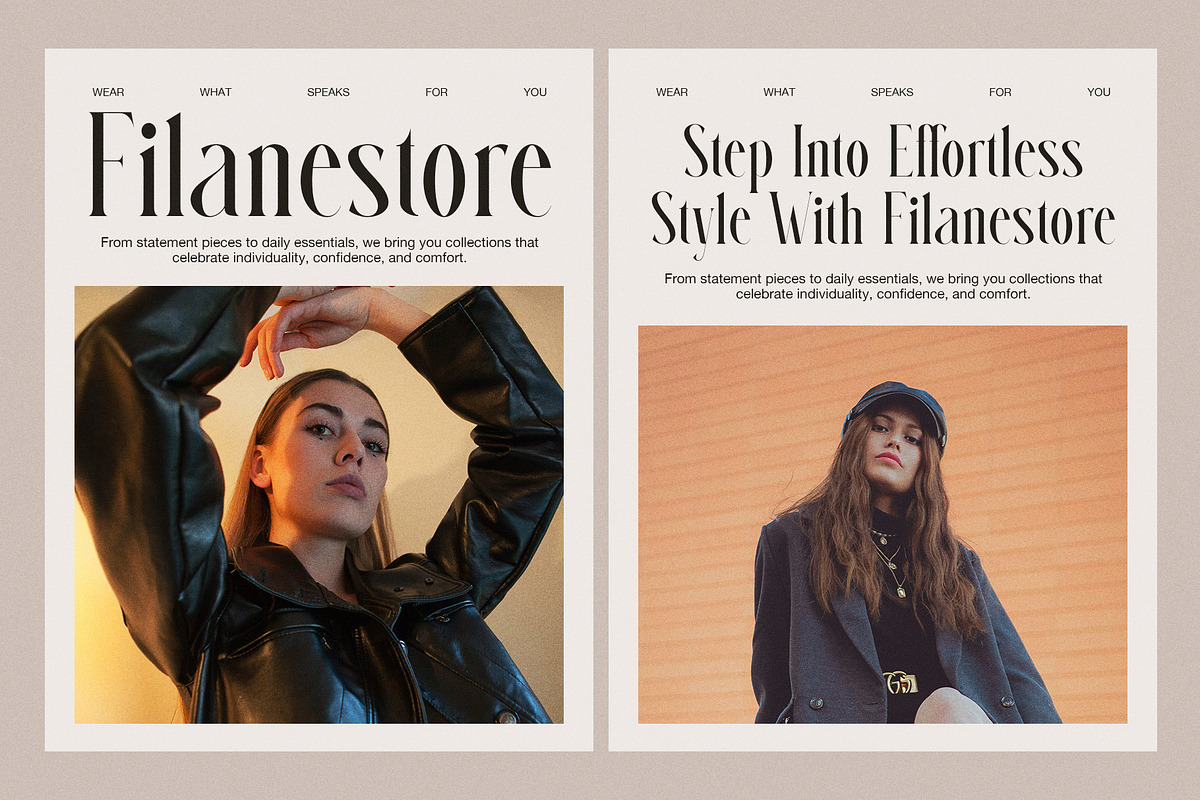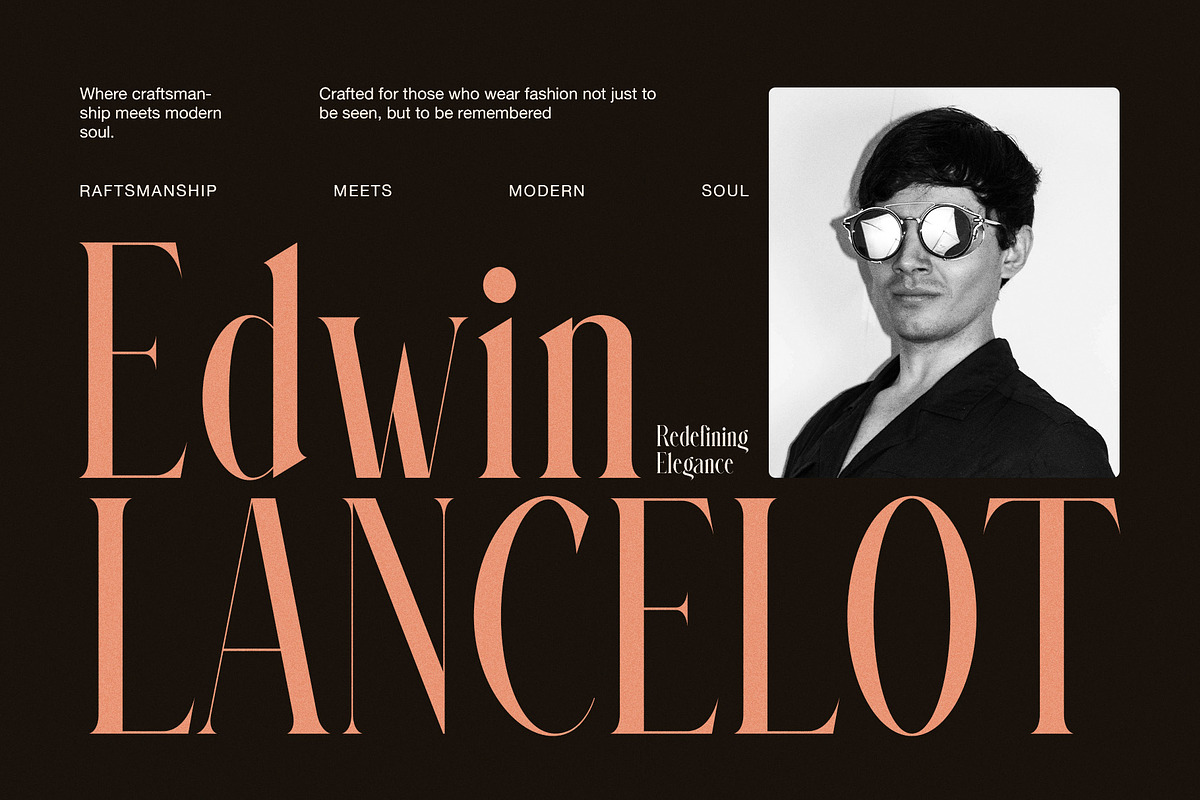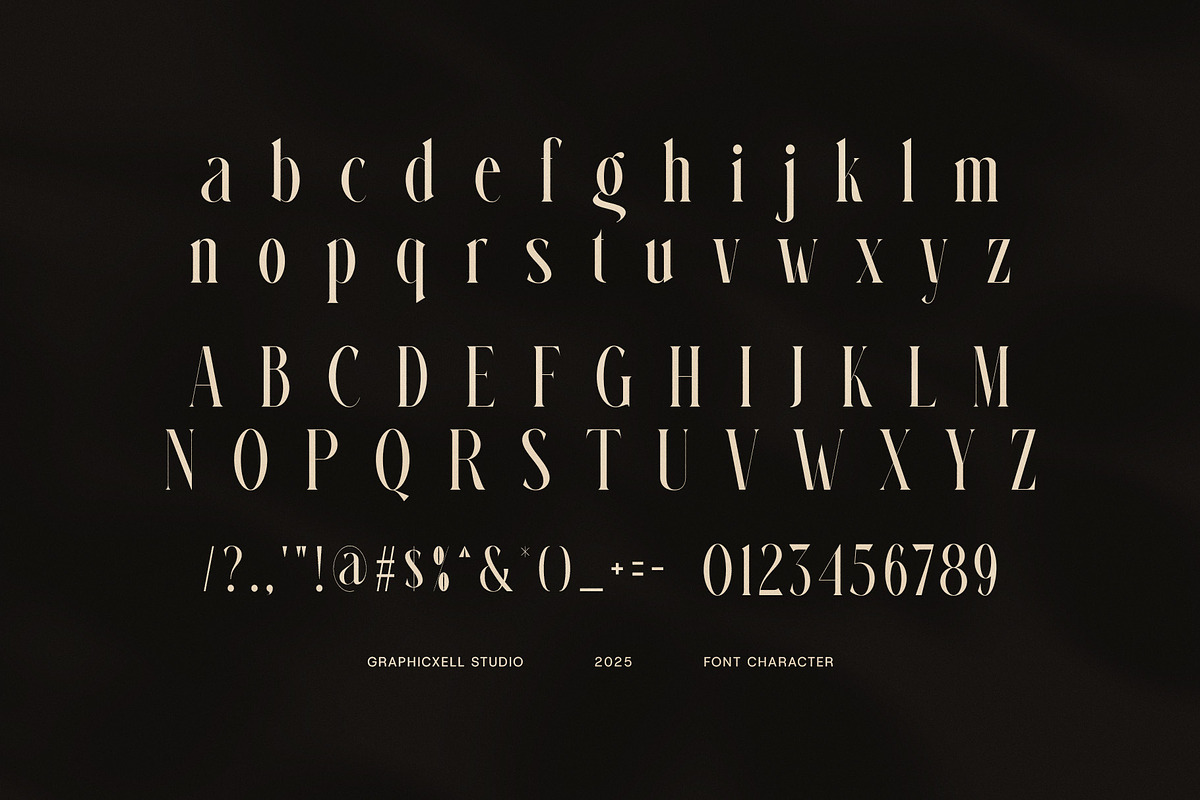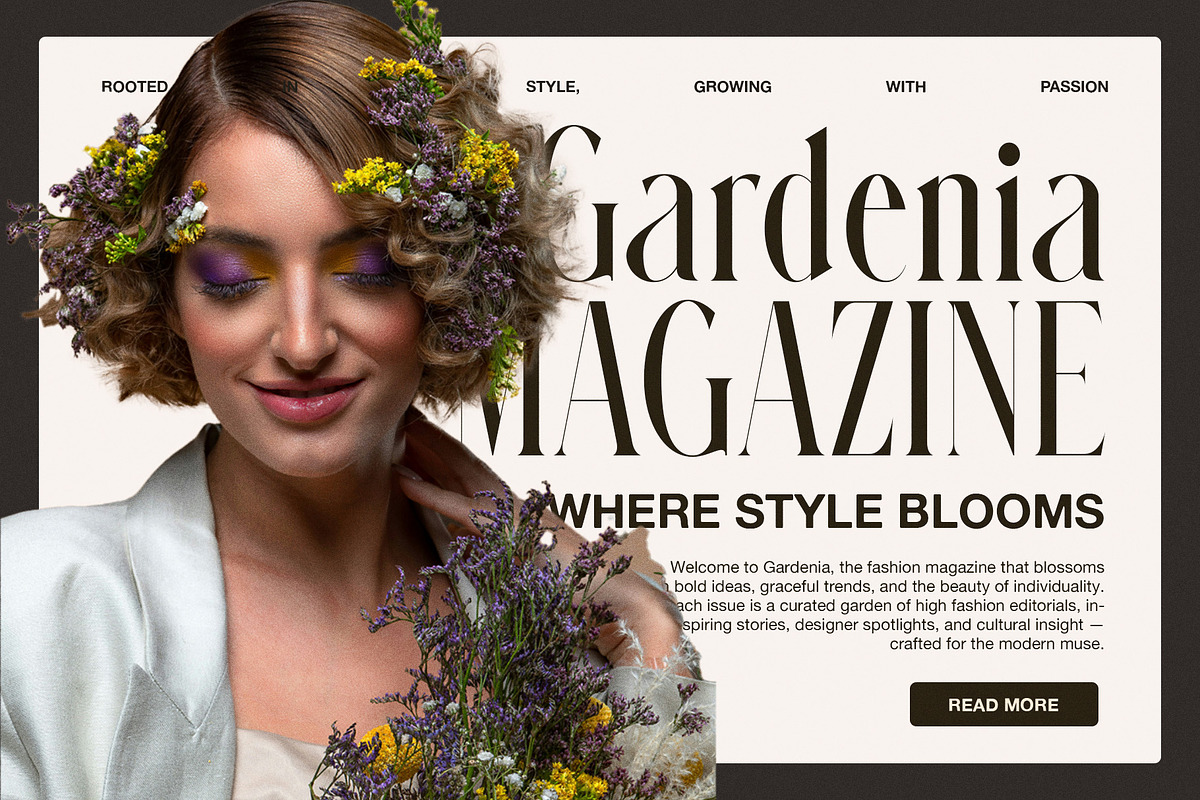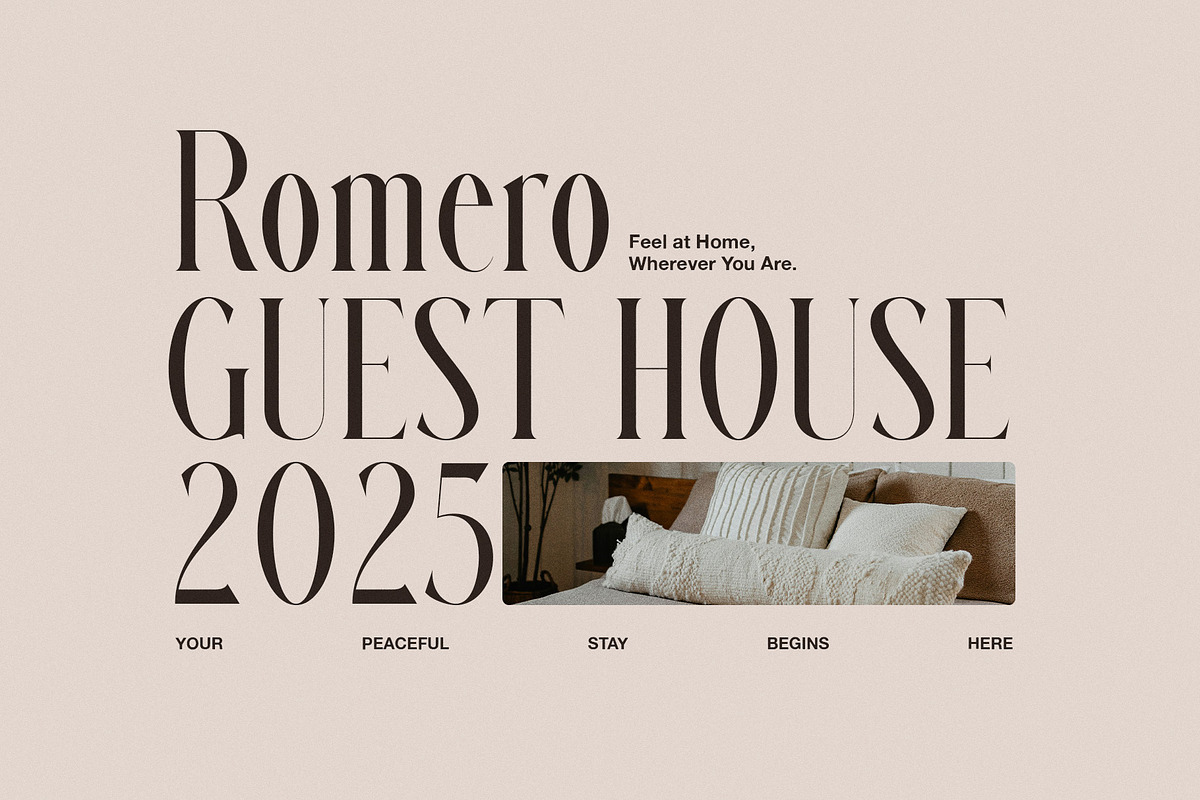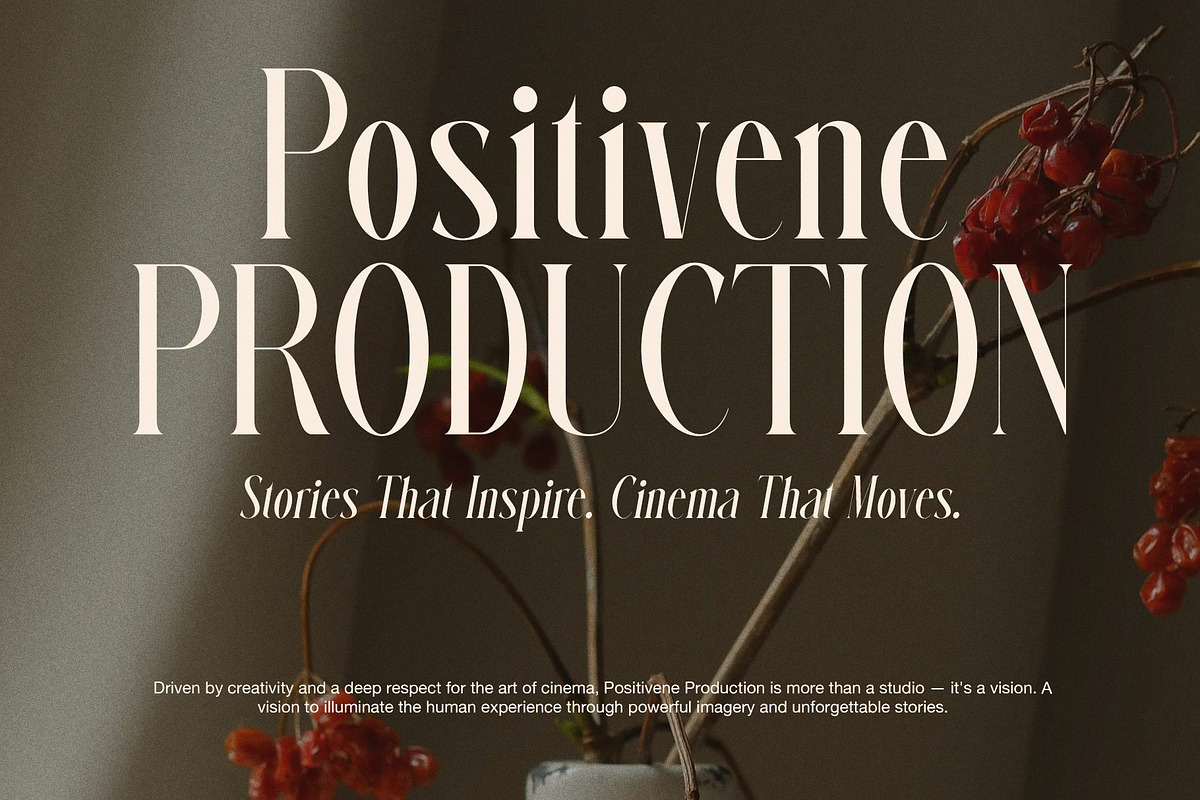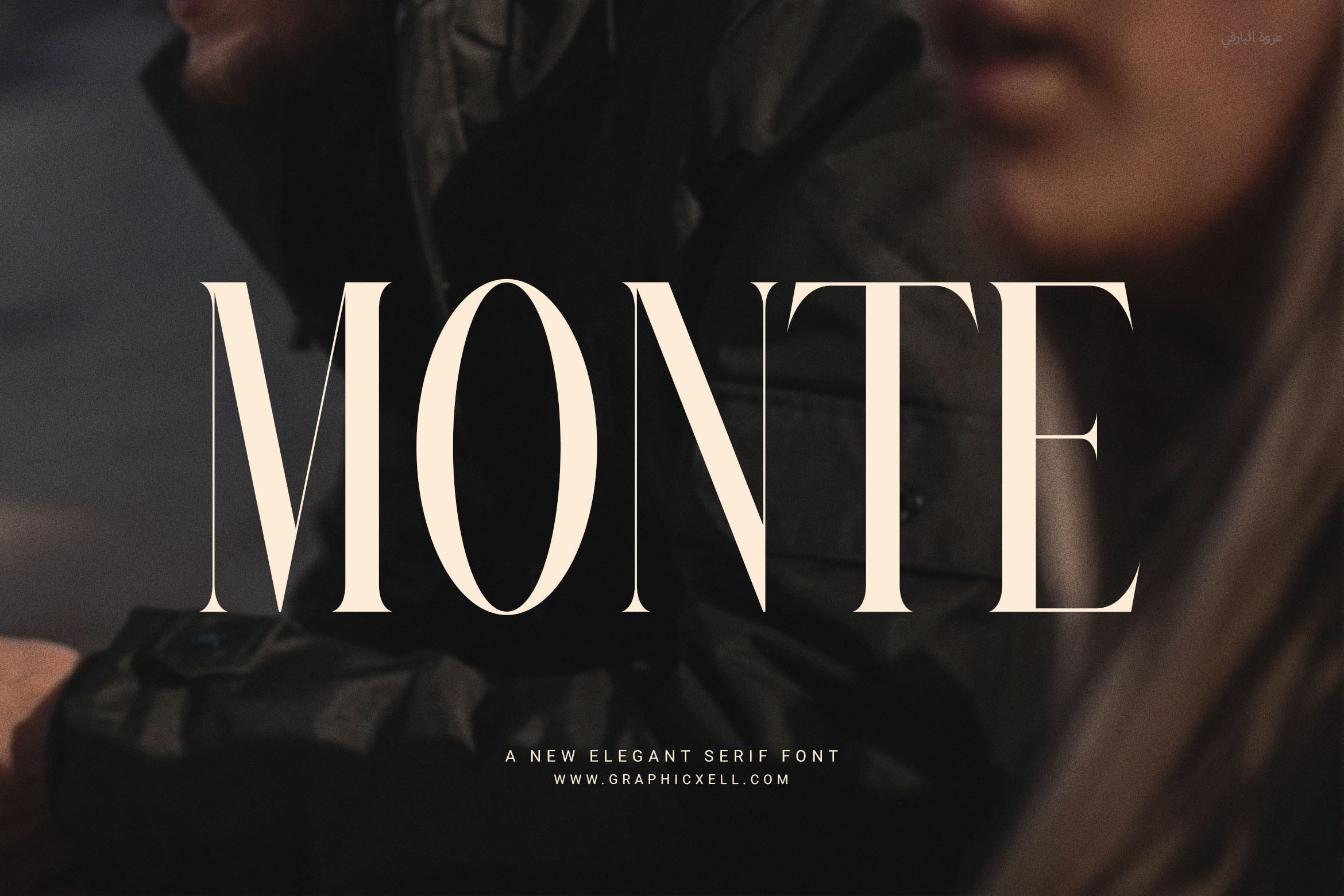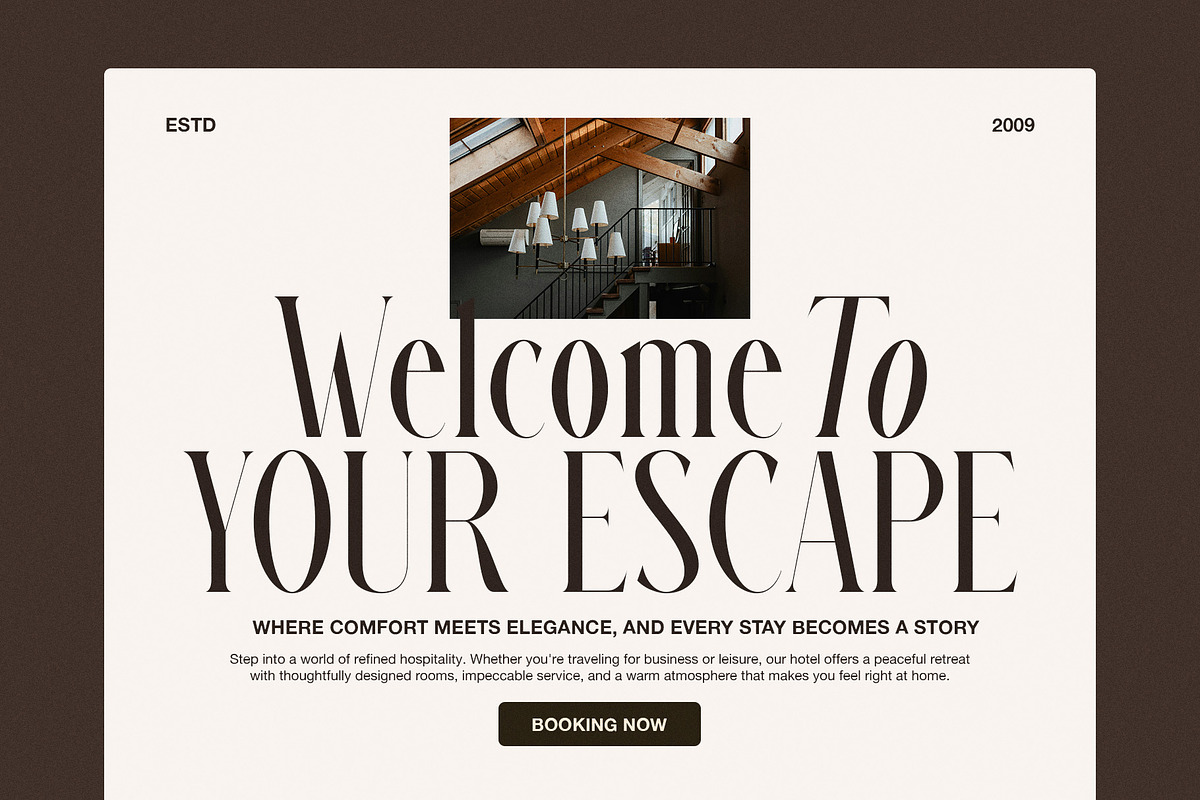
Monte Elegant Serif Font
✨ Monte Elegant Serif Font – A Clean, Modern Serif for Timeless Design
Monte Elegant Serif Font is a modern serif typeface that combines classic style with a fresh, clean feel. It was made for designers who want to bring a touch of luxury to their work—without losing clarity or simplicity.
With smooth curves and balanced spacing, this font adds a sense of elegance to any project. Even better, it includes stylish ligatures that help your text flow naturally, making your design look even more polished.
Because Monte Elegant is both bold and graceful, it fits many creative uses. Whether you’re designing for digital screens or printed materials, this font keeps your message clear and classy.
This font is ideal for:
Logos that need a timeless, high-end look
Branding for fashion, beauty, and boutique shops
Websites with elegant titles or banners
Magazines and editorial layouts
Packaging for handmade or premium products
Invitations for weddings or special events
Social media posts that feel premium
Monte Elegant is more than just a font—it’s a design tool that helps your work stand out. Its proportional shapes make every letter feel balanced, while the ligatures add extra detail without effort.
If you're aiming to create designs that feel stylish, modern, and professional, this font gives you everything you need. From luxury branding to personal projects, Monte Elegant Serif Font is ready to enhance your creativity.